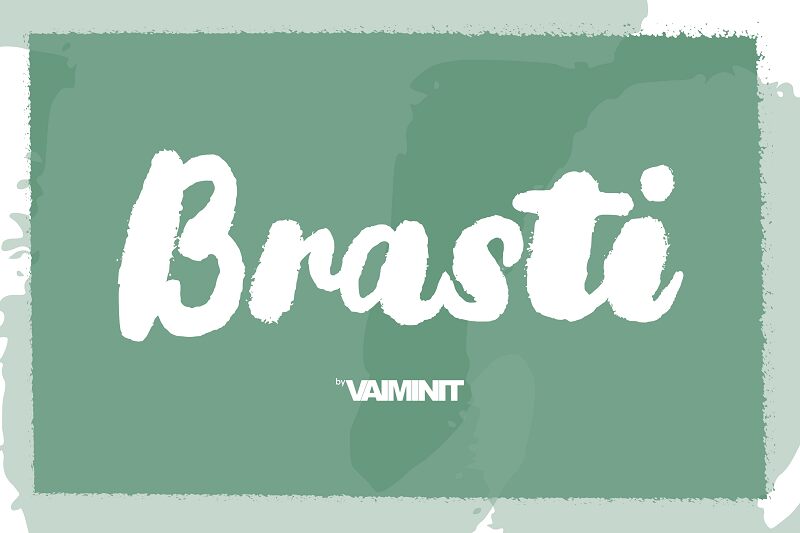
Brasti
Brasti, designed by the creative Vaiminit, is an extra-bold brush font that exudes a sense of coolness and trendiness with every stroke. Its handwritten quality adds a personal touch to your projects, making it perfect for designs that require a dose of individuality and flair. Whether it's for impactful headlines, eye-catching logos, or expressive advertising campaigns, Brasti's robust and dynamic character ensures your work stands out in the most artistic way possible.
This font isn't just versatile-it's a statement piece that brings life to a wide array of creative endeavors.